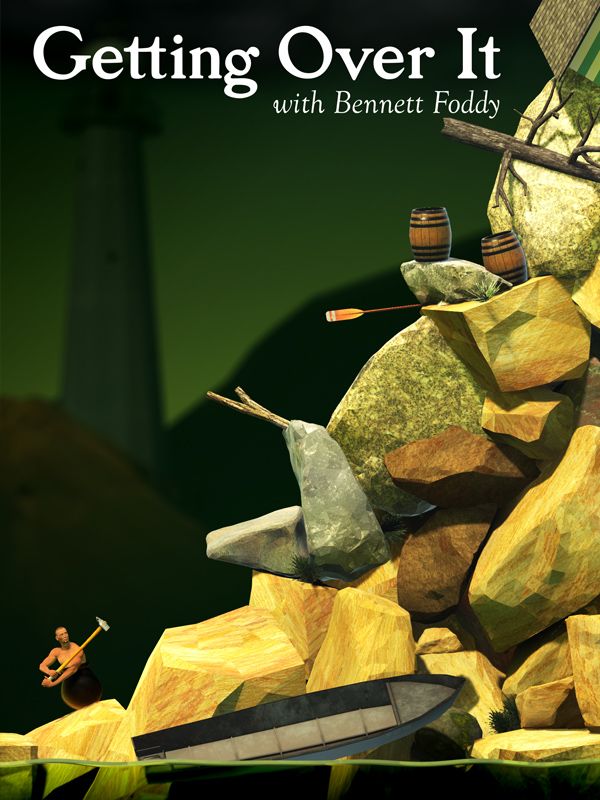
Getting Over It with Bennett Foddy Font
Fonts in UseGetting Over It with Bennett Foddy is a punishingly difficult game where players control a man stuck in a cauldron, using a sledgehammer to climb a mountain. The game is notorious for its challenging gameplay and humorous narration by the game's creator, Bennett Foddy.
Richard Kegler's Parrish Roman font is used for the upright text, while the elegant italic text is set in Goudy Old Style Italic.